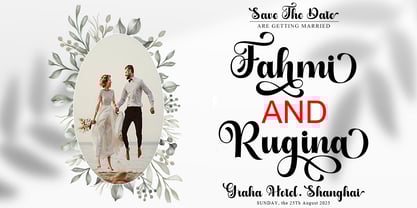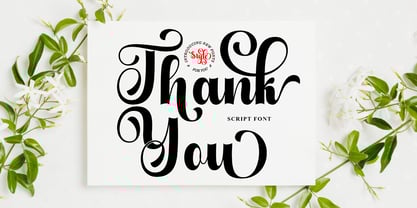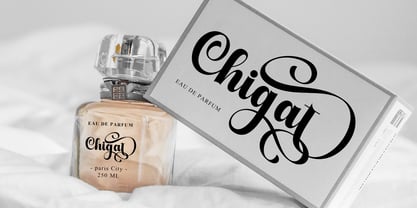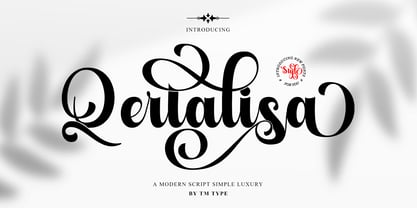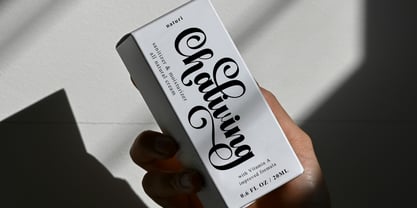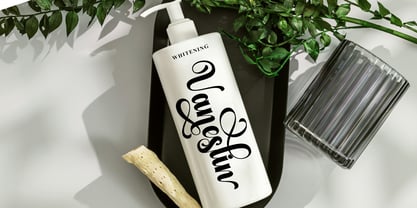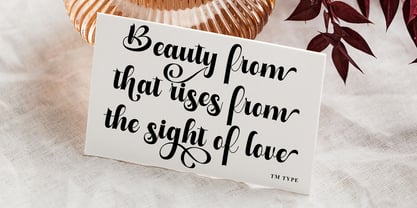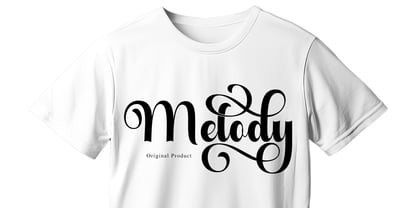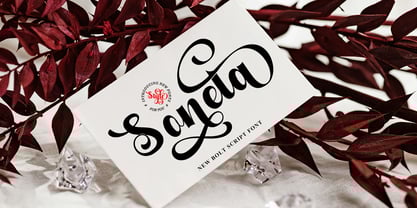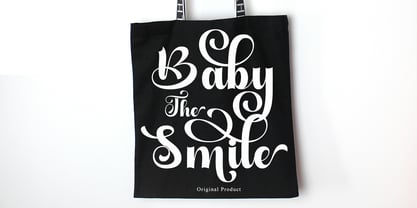
Qertalisa
by TM Type
The Qertalisa Font Family was designed by Teuku Bustami and published by TM Type. Qertalisa contains 1 styles. More about this family
Hello everyone, I would like to introduce my newest font Qertalisa is a beautiful modern calligraphy typeface, I hope you are interested in this font, if you want to use it for your work.
This font can be used easily and simply because there are many features in it. contains a complete set of lowercase and uppercase letters, a wide variety of punctuation, numbers, and multilingual support and also has a variety of alternative styles.
Qertalisa is very suitable for today's emerging market design, this font has stylish, trendy, natural and soft fonts, with this font you can take advantage of every occasion is a great way to highlight the celebration at its best, because it will be a support for the cause.
such as wedding invitations, branding, parties, graduations, birthdays, social gatherings, spring, etc.